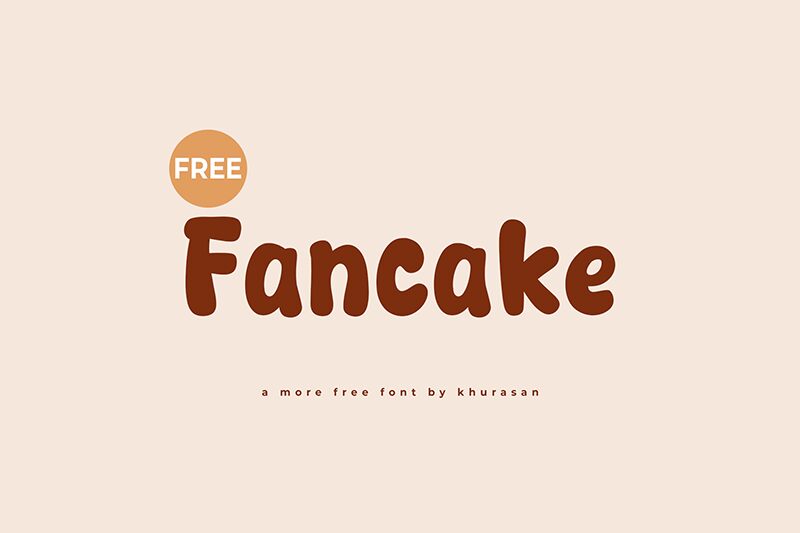
Fancake
Fancake font, a whimsical font from Khurasan, is characterized by its cartoonish and gentle rounded capitals. A modern display bold font with some distinctive features such as the oblique letterforms and the uneven sizes so closely set together. Its casual style gives a friendly vibe which works well for children’s related themes as well as non-serious branding or events.